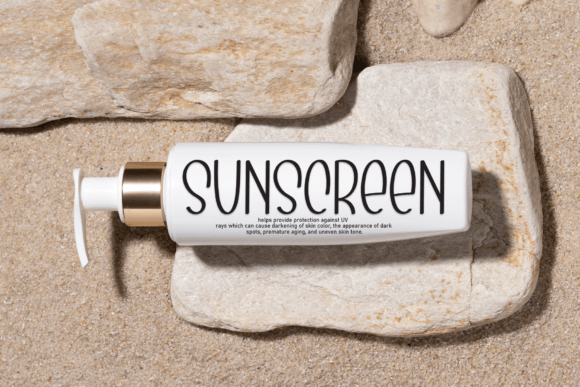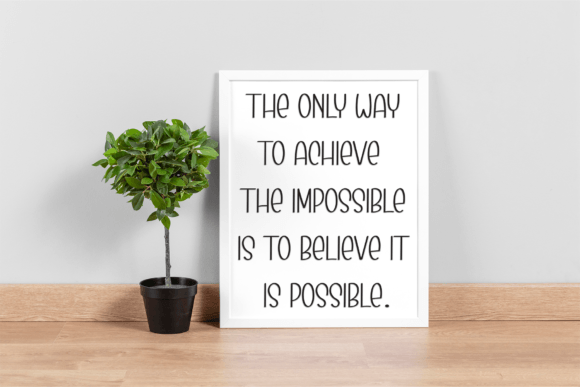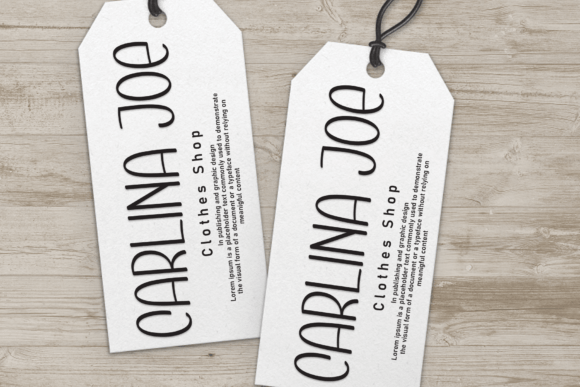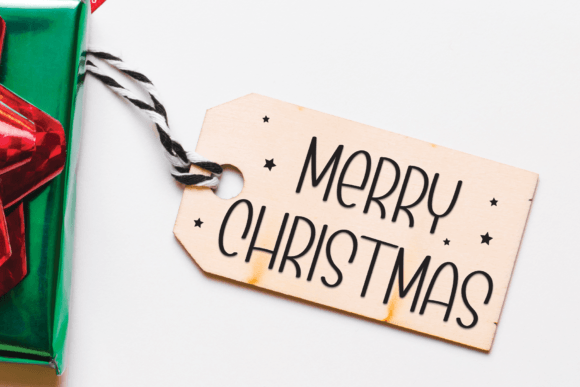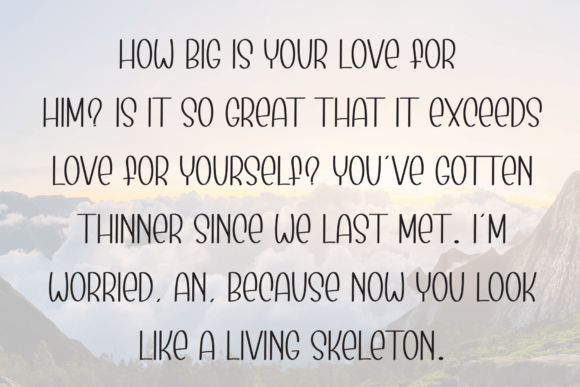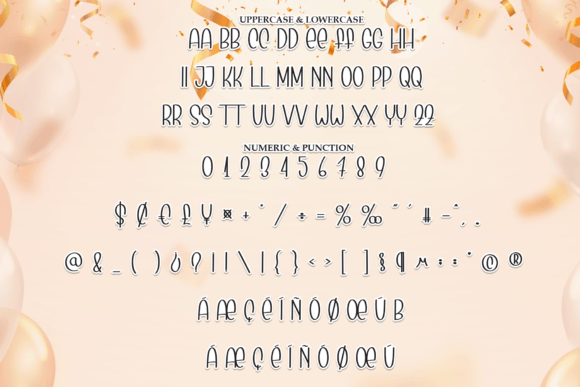
Introducing Anniversary Font: Elevate Your Designs with Elegance and Playfulness
Are you searching for the perfect font to add a touch of romance and sophistication to your creative projects? Look no further than Anniversary Font, a versatile, stylish, and playful display font designed to make your designs stand out. Whether you’re working on greeting cards, headlines, or any other project that requires a dash of elegance, Anniversary Font is the ideal choice.
What Makes Anniversary Font Special?
Anniversary Font is crafted to provide a wide range of creative possibilities. Its unique blend of style and playfulness makes it perfect for various applications, including:
- Greeting cards: Add a personal touch to your cards with Anniversary Font’s elegant and romantic feel.
- Headlines: Make your headlines pop with this eye-catching font, perfect for grabbing attention.
- Logos: Create a memorable brand identity with Anniversary Font’s distinctive style.
- Social media graphics: Elevate your social media posts with a touch of sophistication and whimsy.
- And many more: The versatility of Anniversary Font makes it suitable for a wide range of creative projects.
Key Features of Anniversary Font
So, what sets Anniversary Font apart from other fonts? Here are some of its key features:
- Versatile: Anniversary Font is designed to be adaptable, making it suitable for various design applications.
- Stylish: With its elegant and refined aesthetic, Anniversary Font adds a touch of sophistication to any design.
- Playful: This font’s playful side makes it perfect for designs that require a dash of whimsy and fun.
- Romantic: Anniversary Font’s romantic feel makes it ideal for projects that require a touch of warmth and sentimentality.
- Exquisite: The font’s exquisite style ensures that your designs will stand out and leave a lasting impression.
How to Use Anniversary Font in Your Designs
Benefits of Using Anniversary Font
By incorporating Anniversary Font into your designs, you can enjoy a range of benefits, including:
- Enhanced visual appeal: Anniversary Font’s elegant and playful style will elevate the visual appeal of your designs.
- Increased engagement: The font’s romantic and exquisite feel will capture your audience’s attention and leave a lasting impression.
- Improved brand identity: Anniversary Font can help you establish a consistent brand identity and reinforce your brand’s message.
In conclusion, Anniversary Font is a versatile, stylish, and playful display font that’s perfect for designers and crafters looking to add a touch of elegance and whimsy to their creative projects. With its romantic and exquisite feel, this font is sure to elevate your designs and leave a lasting impression on your audience. So why wait? Add Anniversary Font to your design toolkit today and start creating stunning designs that will capture your audience’s heart!